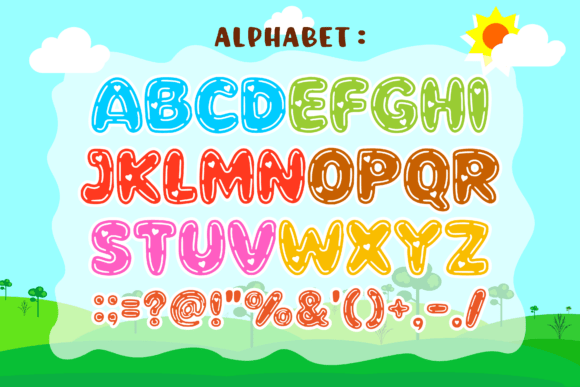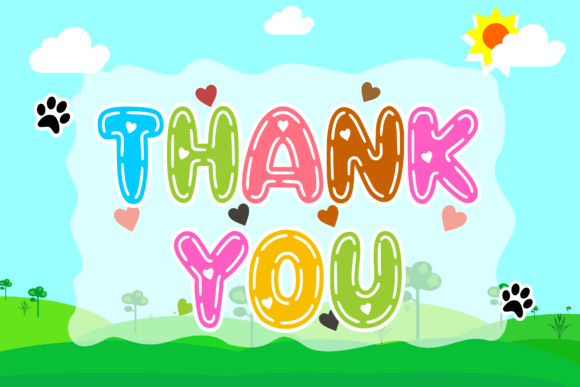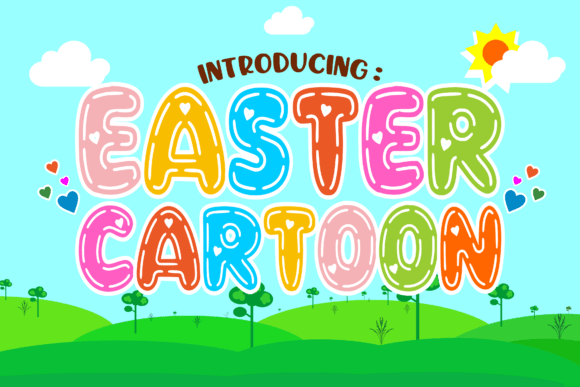
Unleash the Spirit of Easter with the Easter Cartoon Font
As the world awakens from its winter slumber, the spirit of Easter and the joy of spring bring with them a sense of renewal and celebration. What better way to capture this essence than with a font that embodies the whimsy and charm of the season? Introducing the Easter Cartoon font, a unique typeface that combines retro nostalgia with the cuteness of love lines, making it the perfect addition to any design or crafting project.
The Essence of Easter Cartoon Font
The Easter Cartoon font is more than just a collection of characters; it’s an artistic celebration of the Easter season and the joy of spring. Each character in this font is meticulously designed to exude a sense of retro nostalgia, reminiscent of classic cartoons and children’s books from a bygone era. The charming, cute love lines that adorn each character add a touch of whimsy and playfulness, making this font ideal for projects aimed at children or those young at heart.
A Perfect Fit for Children’s Alphabet and Easter-themed Projects
Whether you’re a designer working on a children’s alphabet book, an educator creating educational materials, or a crafter making Easter-themed decorations, the Easter Cartoon font is the perfect choice. Its playful and imaginative design captures the joy and wonder of spring and the joyful holiday of Easter, making it an excellent tool for bringing your projects to life.
Where Nostalgia Meets Imagination
The Easter Cartoon font represents a unique blend of nostalgia and imagination. Its retro charm is sure to evoke memories of childhood favorites, while its playful design encourages creativity and imagination. By incorporating this font into your projects, you’re not just adding a typeface; you’re creating an experience that transports your audience to a world of wonder and enchantment.
Key Features of Easter Cartoon Font
• Retro Nostalgia: Each character is designed with a retro aesthetic, perfect for projects that require a vintage or classic feel.
• Cute Love Lines: The charming lines and curves add a touch of cuteness and playfulness to the font.
• Easter and Spring Theme: The font is specifically designed to capture the essence of Easter and the spring season, making it ideal for themed projects.
• Children’s Projects: The playful and imaginative design makes it a great fit for children’s alphabet books, educational materials, and more.
Tips for Using Easter Cartoon Font
The Easter Cartoon font is a delightful addition to any design or crafting project, offering a unique blend of retro nostalgia and playful charm. Whether you’re creating a children’s alphabet book, Easter-themed decorations, or simply looking for a font that captures the joy of spring, this typeface is sure to bring your projects to life. Experience the alluring charm of Easter Cartoon, where nostalgia meets imagination, and unleash the spirit of Easter and the joy of spring in your creations.